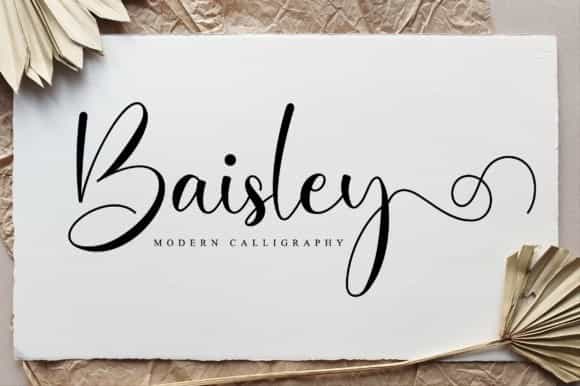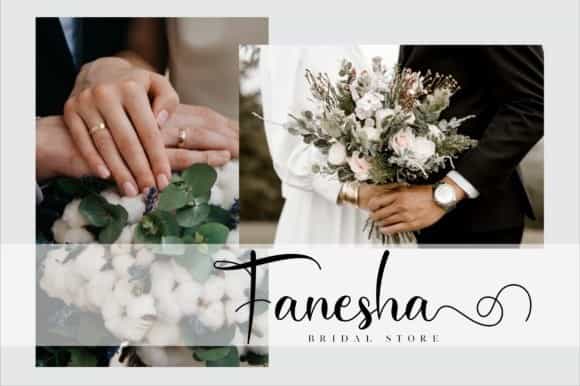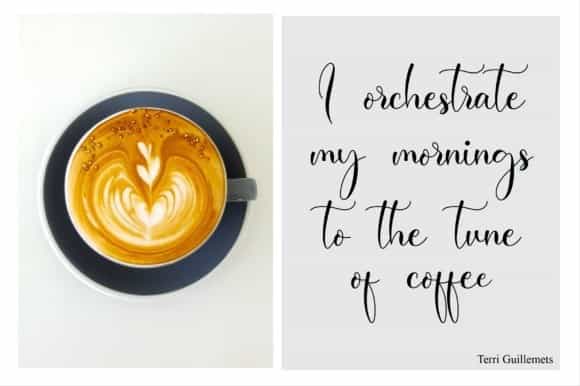
Baisley is a modern calligraphy script font, all the letters are meticulously crafted to make your text look beautiful. With modern script style this font will perfect for many different project, example: You can use it for invitations, greeting cards, posters, name card, quotes on your blog header and even in branding projects. Also you can design fashion stuff with Canva like apparel or letter stationary etc.